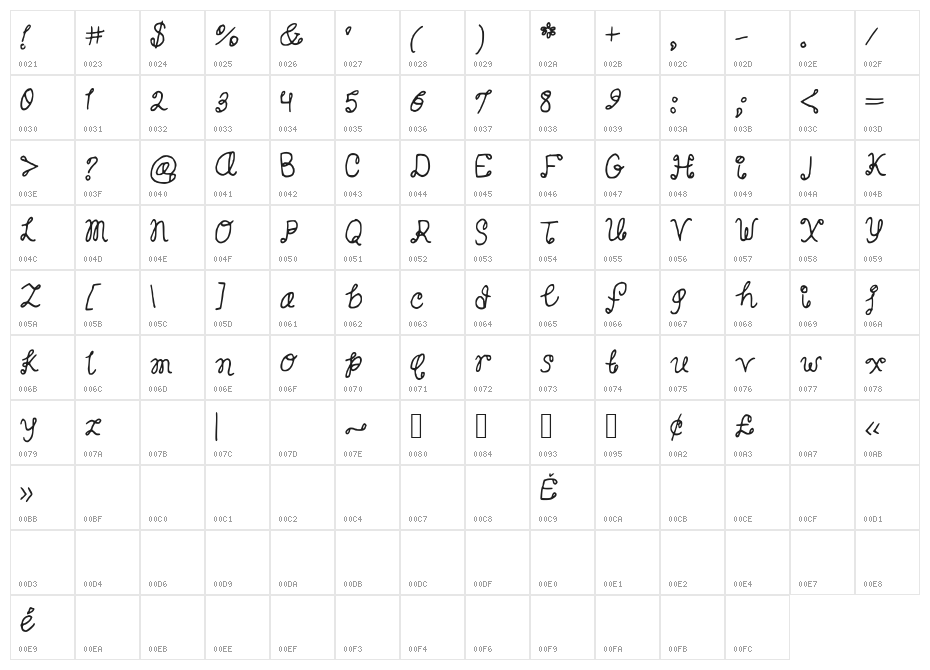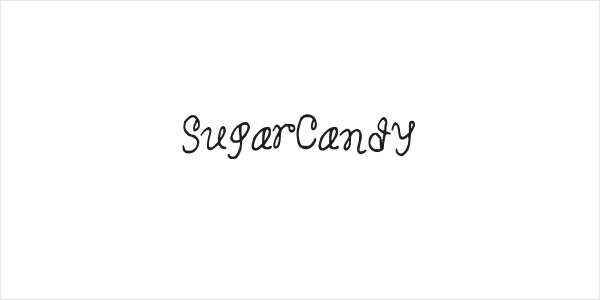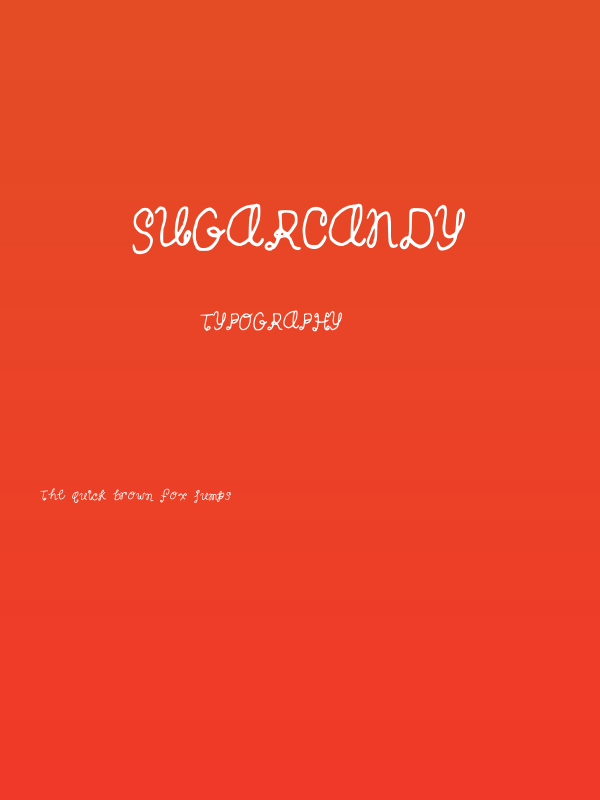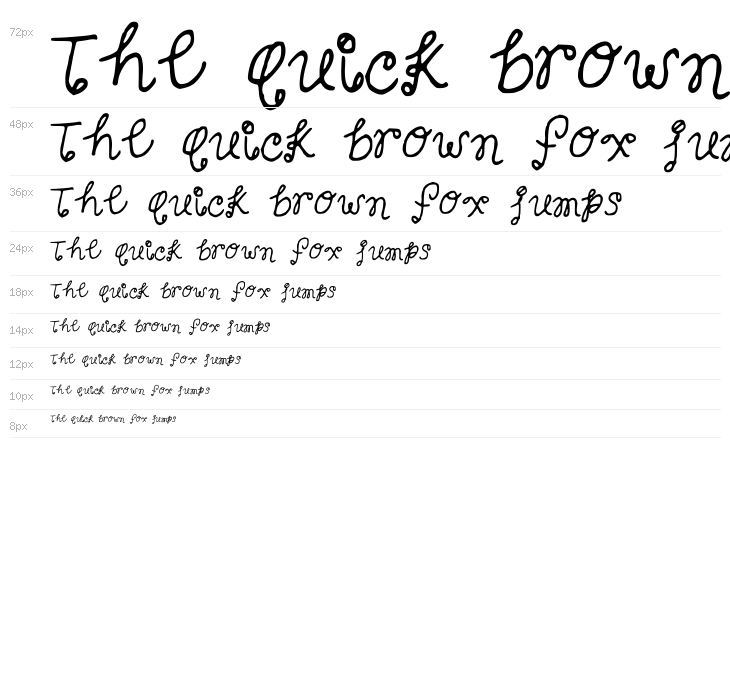
SugarCandy Font
SugarCandy Description
This playful and whimsical font features a unique, hand-drawn style with a charming, curly design. Each character is adorned with small loops and swirls, giving it a lively and fun appearance. The letters are slightly irregular, adding to the casual and informal feel. The font maintains a consistent stroke width, contributing to its cohesive look. The numbers and special characters follow the same playful theme, making it suitable for creative and lighthearted projects. Its distinctive style ensures that it stands out, making it ideal for designs that require a touch of personality and flair.
| Proposed Projects | Ideal for children's books, greeting cards, playful branding, and creative posters. |